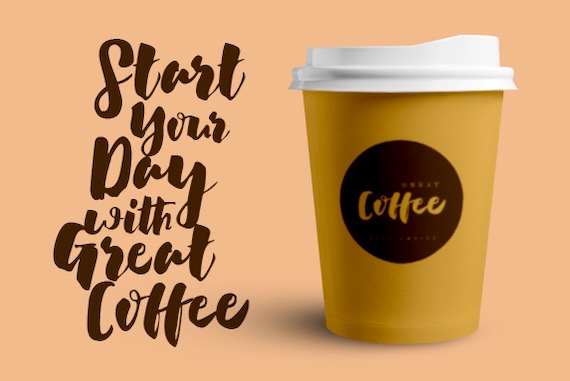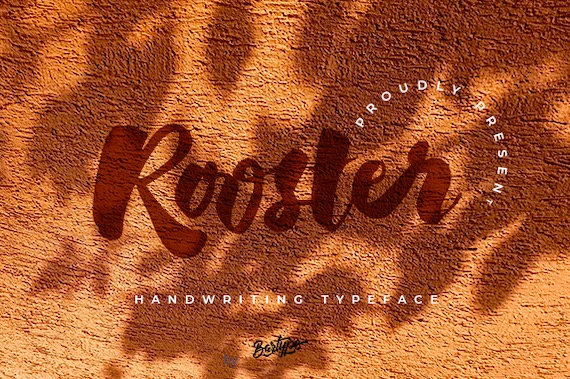
Rooster Font is an elegant, trendy, and chic handwritten script typeface that was created and shared by Bartype. Rooster will look gorgeous on many designs, for example, thank you cards, greeting cards, wedding invitations, business cards, quotes, logos, and other designs which need a classy handwritten touch.
Rooster SCript Font